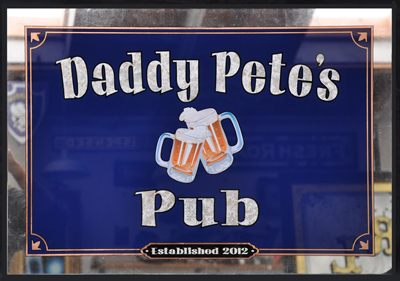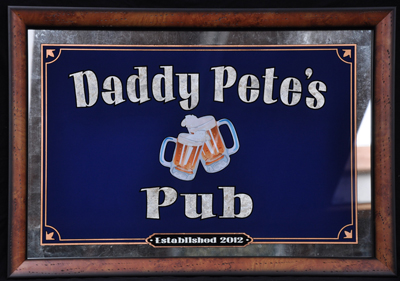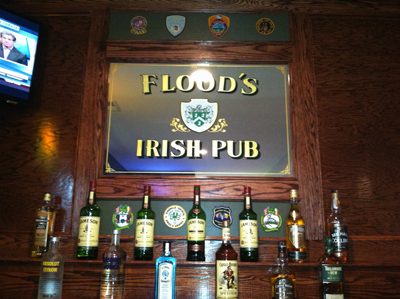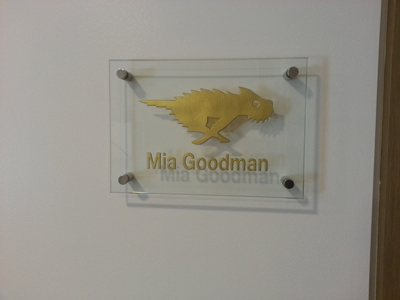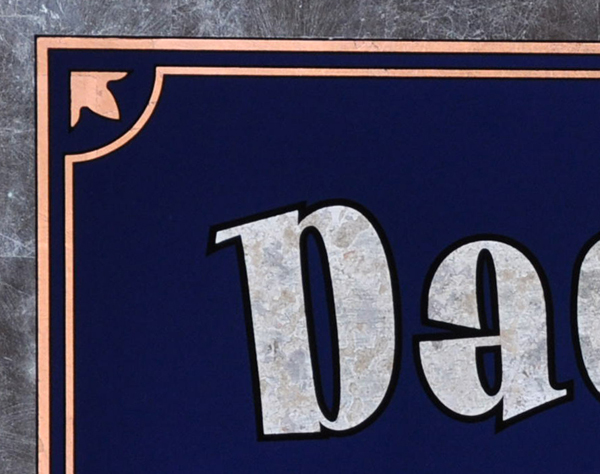
Thought I would post a photograph of a nice glass bar mirror I just finished. The lettering texture was created by stippling 1 hr size into the open windows and first gilding with skewings of Paladium leaf. Then another layier of paladium and silver leaf backed up by silver one shot. I watergilded the border with 12ct white gold to give it a softer look then mirroring.
The customer decided to add a frame. on this mirror.
The next photo of the Flood mirror was sent to me by a client yesterday
The little running Dog is for Rocket Dog shoes in L.A.
The next photo of the Flood mirror was sent to me by a client yesterday
The little running Dog is for Rocket Dog shoes in L.A.
Nice work. I'd like to see a close up of the textured lettering.
Is that copper leaf for the border? it works nicely with the dark blue.
Here you go. The main copy is oil gilded using crushed up and scumbled Paladium, Silver and very antiqued silver leaf. The border is copper leaf and the outside mirroring is 12ct white gold.
I really like the way you do your heavy antiqued mirrors with water gilding. Maybe I'll have to come back over to your neck of the world so you can show me how you do it.